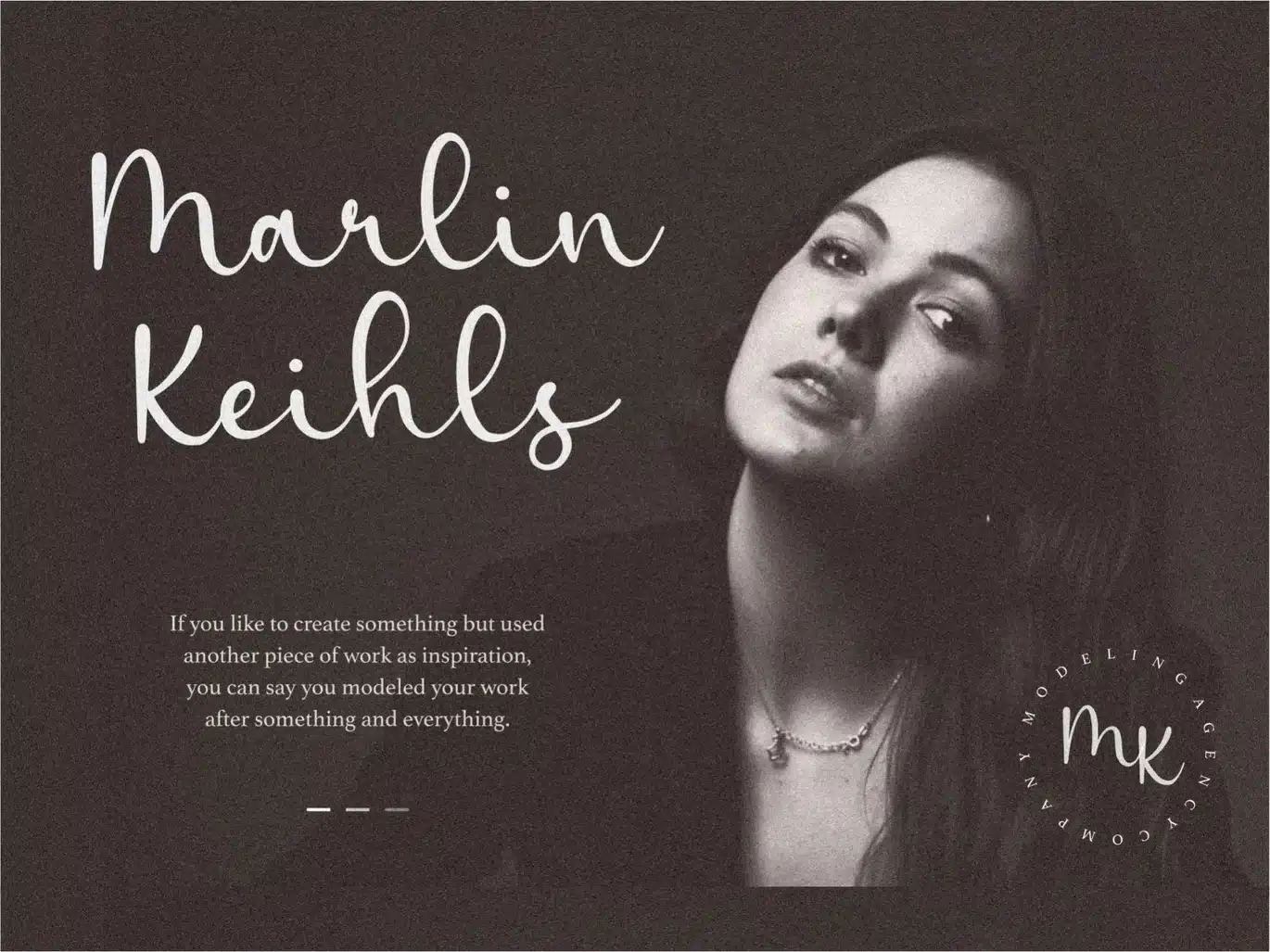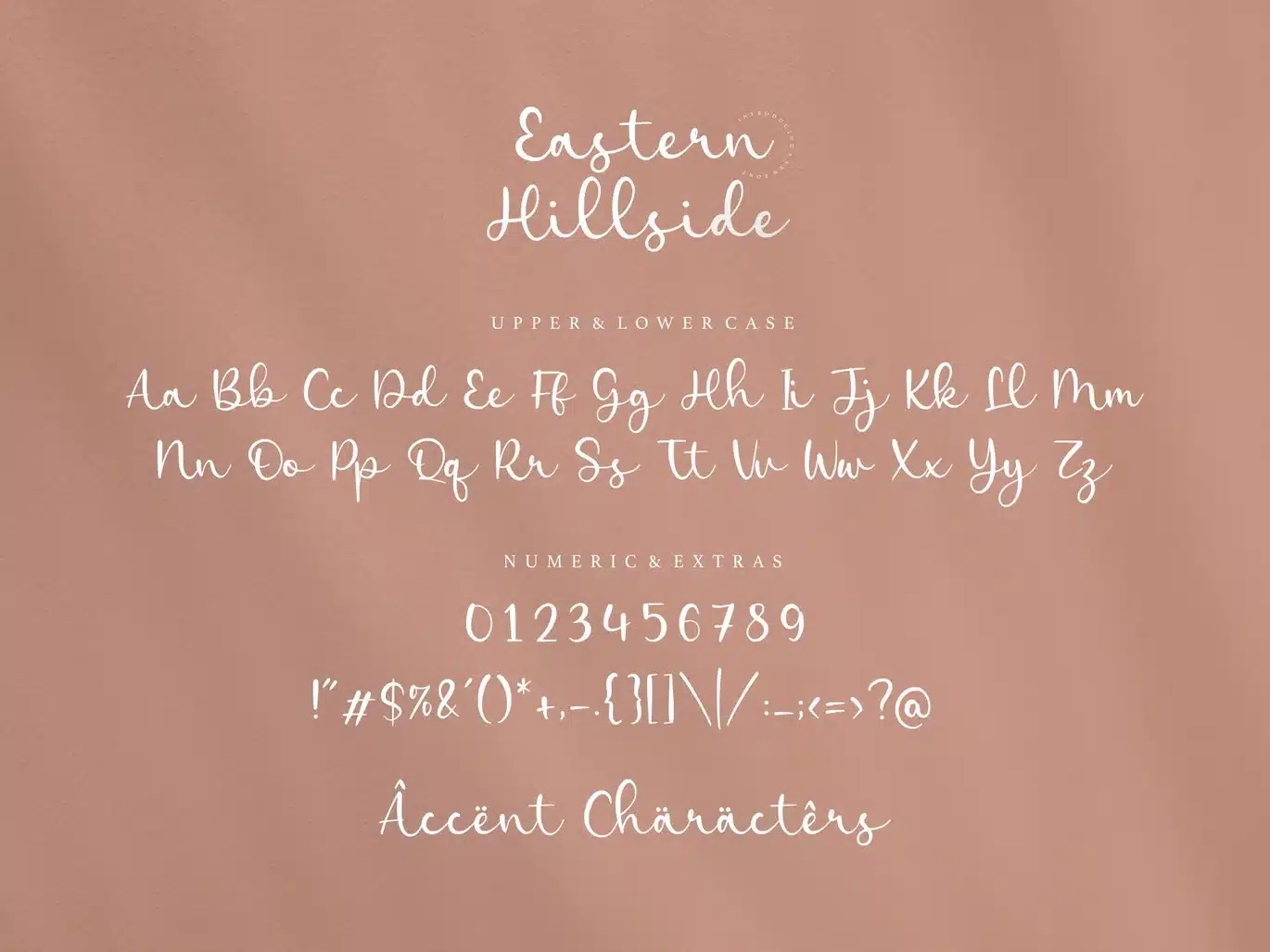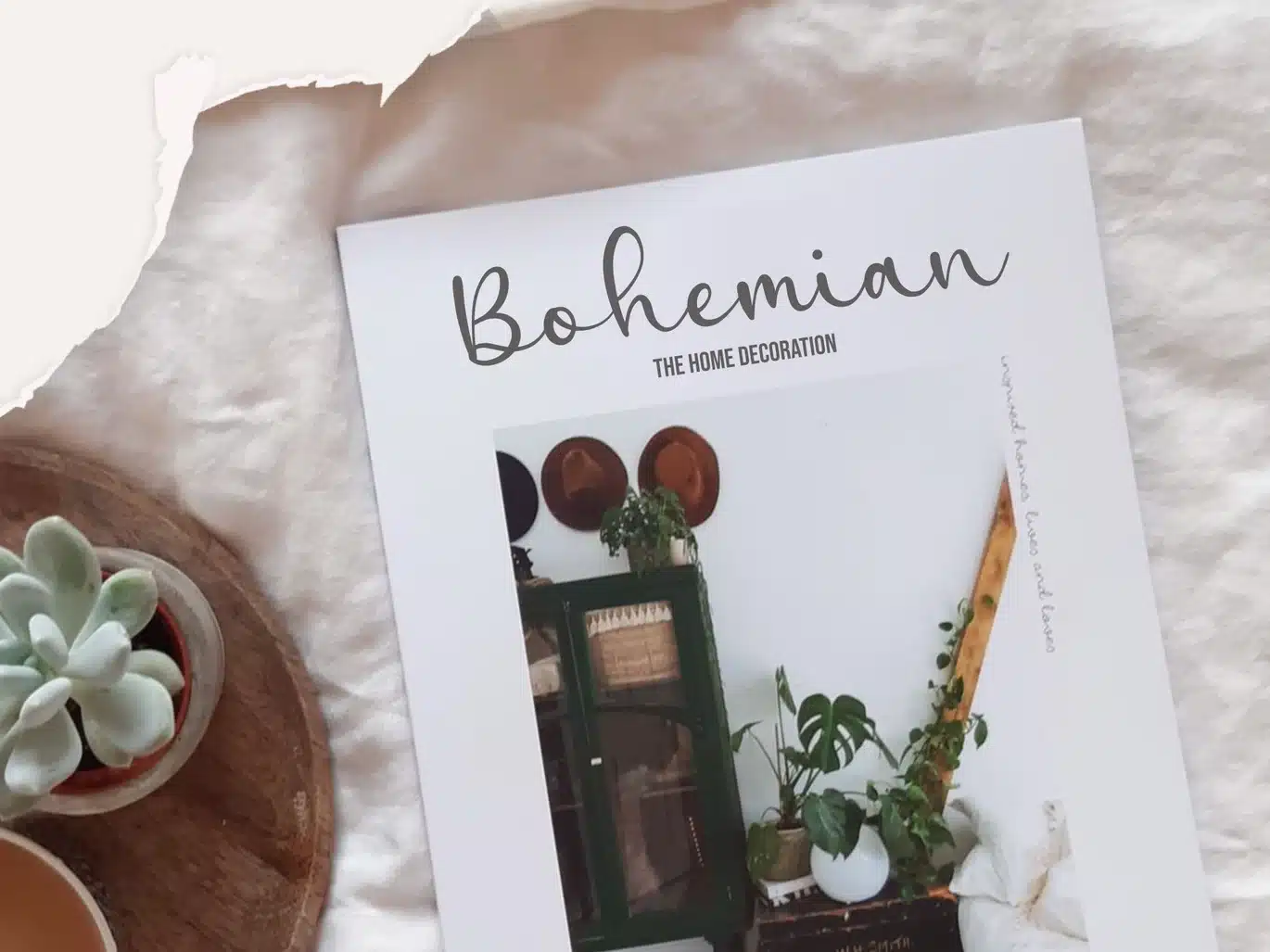
Eastern Hillside – Modern Handwritten Logo Font
Introducing by Balpirick Studio : Eastern Hillside Font
Eastern Hillside is a Modern Handwritten Font
Eastern Hillside is perfect for product packaging, branding project, megazine, social media, wedding, or just used to express words above the background.
Eastern Hillside also multilingual support